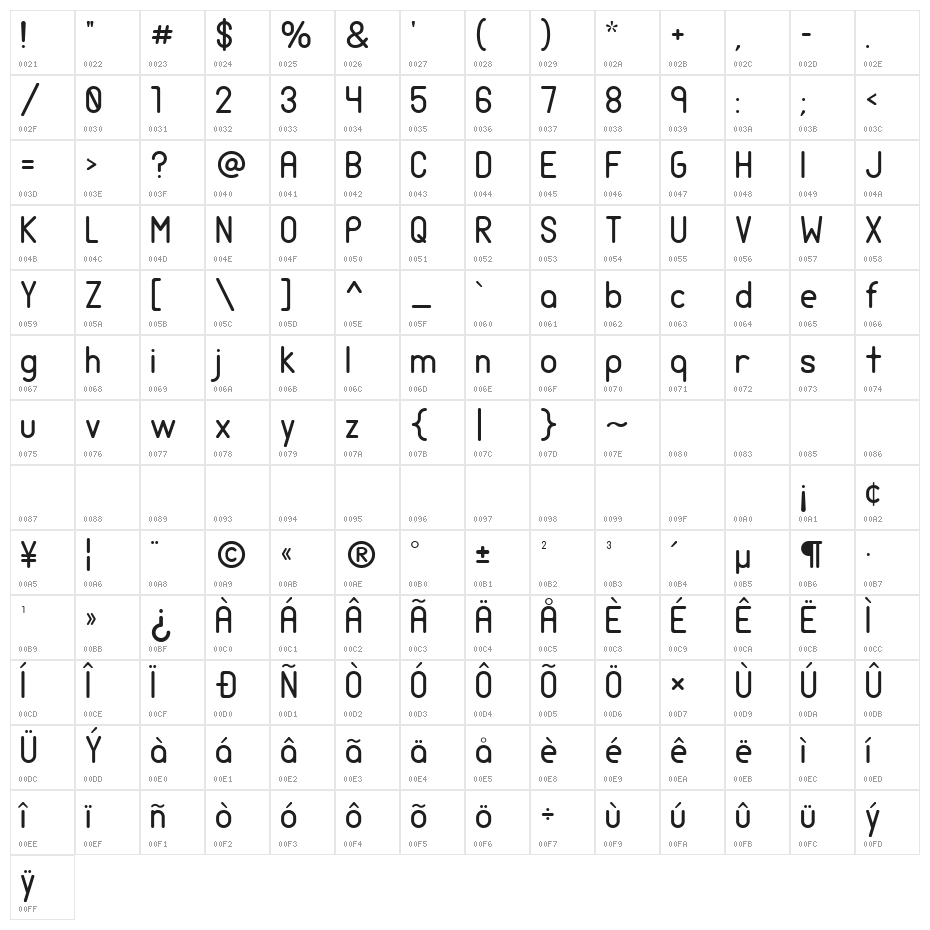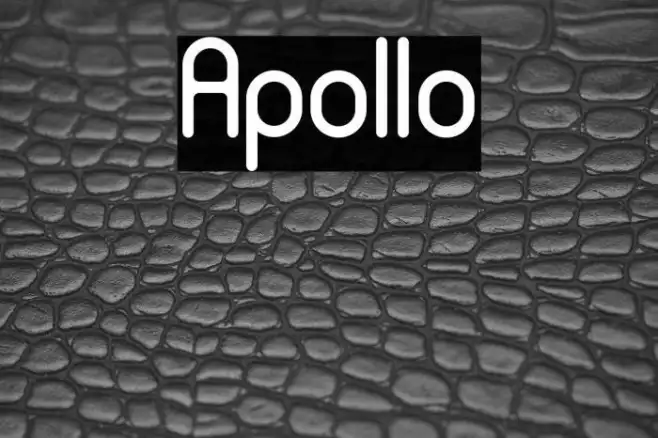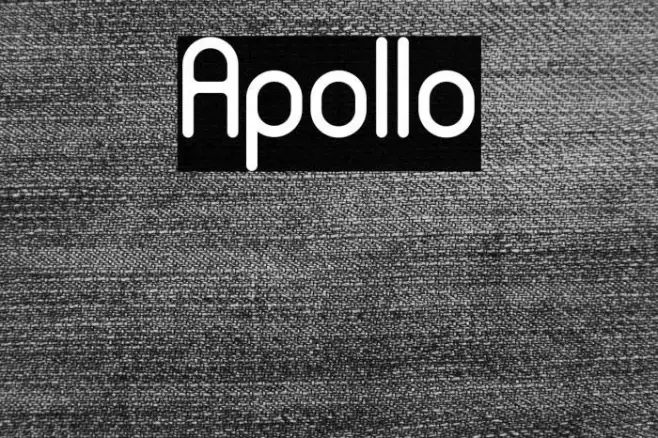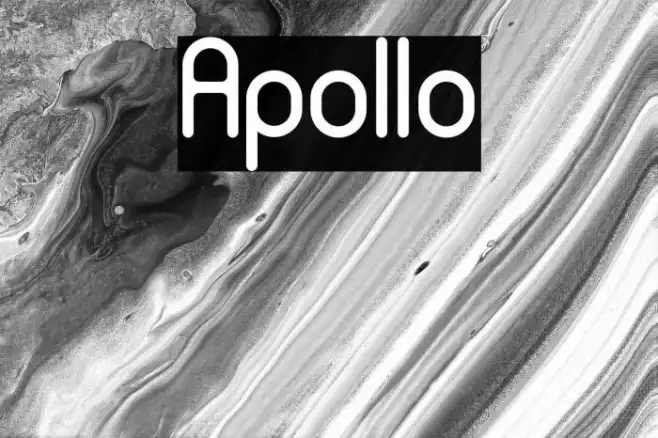
Apollo Font
Apollo Description
This font features a clean and modern design with rounded edges, giving it a friendly and approachable appearance. The characters are evenly spaced, contributing to its readability. The uppercase letters are bold and prominent, while the lowercase letters maintain a consistent style that complements the overall look. The numerals are clear and distinct, making them suitable for various applications. The special characters are well-integrated, maintaining the font's cohesive style. This font's simplicity and clarity make it versatile for a range of design projects.
| Proposed Projects | Ideal for branding, digital interfaces, children's books, and educational materials. |